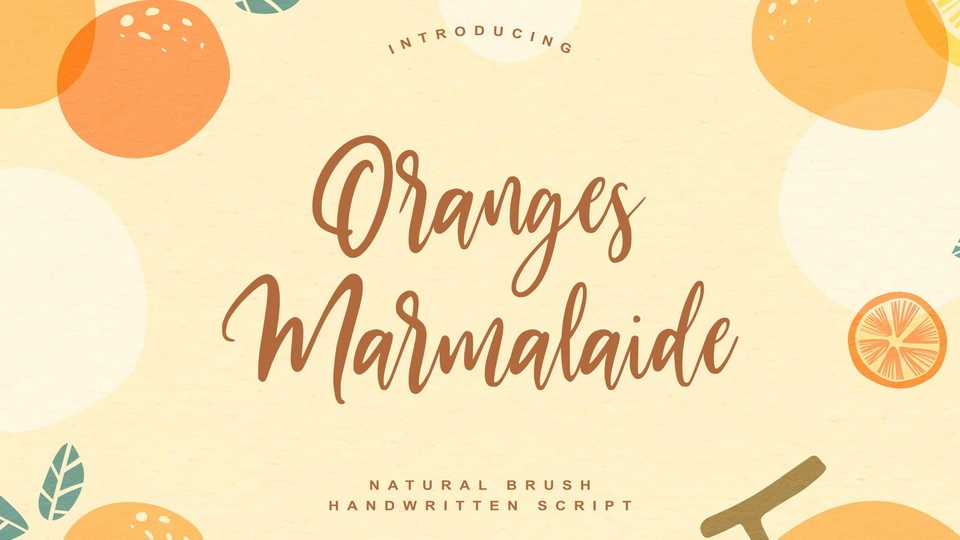
Oranges Marmalaide Font › Fontesk – Download Grátis
Download Oranges Marmalaide font, a natural and classy typeface with a fashionable handwritten style look. Oranges Marmalaide is perfect for branding projects, logo, wedding designs, social media posts, and anything that you want.